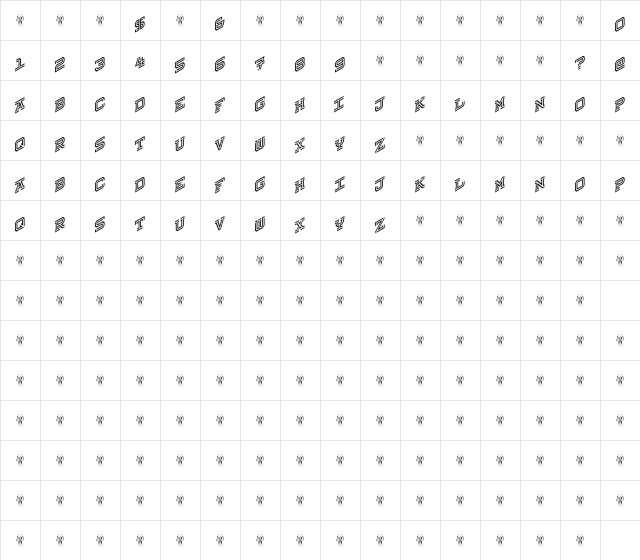
Hokjesgeestcube Italic
Design Context for Hokjesgeestcube Typeface
Hokjesgeestcube is a composed and adaptable typeface that performs quietly and consistently across a wide range of design contexts. The dynamic lean of this cut emphasises speed and emphasis in any layout.
Pro Tip: Use Hokjesgeestcube for emphasis, pull quotes, and subheadings where its slanted energy can add rhythm to the layout.